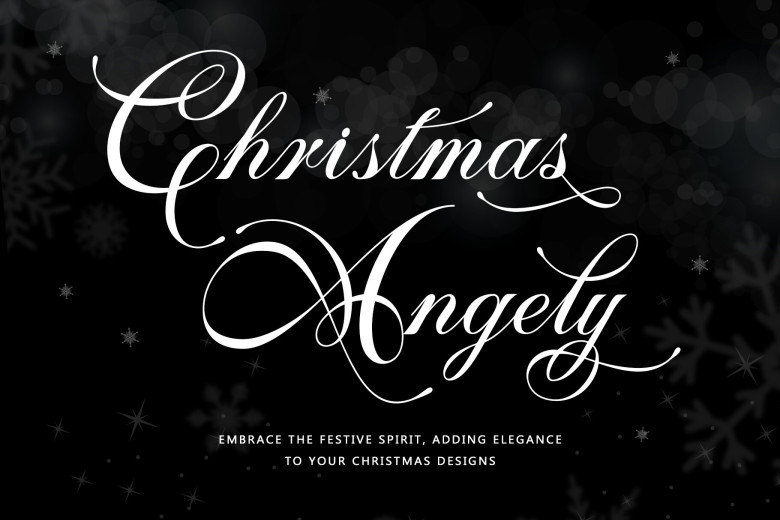
Christmas Angely Font
Explore a world of wonder with Christmas Angely formal calligraphy font, an eye-catching formal font which adds extra glitz to your projects. Celebrate Christmas in style and make each event extra-special with PUA encoder and explore all its infinite potentialities for personalizing work projects.
Christmas Angely Calligraphy Font